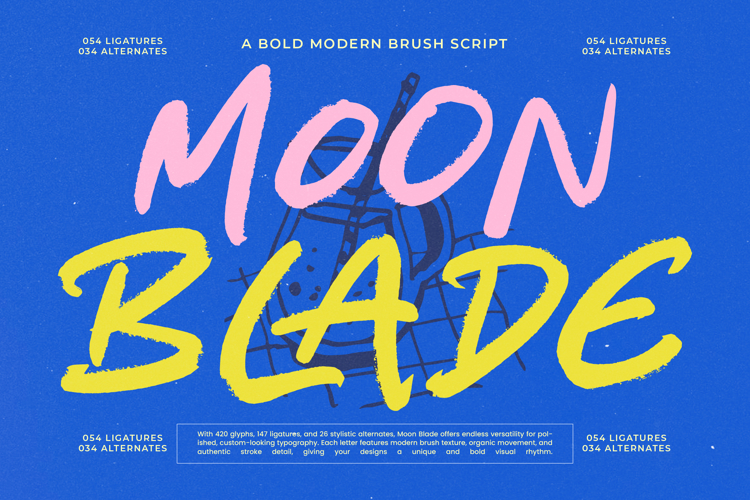
Moon Blade - Bold Modern Brush Script
Unleash raw creative energy into your typography with Moon Blade - Bold Modern Brush Script. This typeface is a study in dynamic texture, delivering the spontaneous impact of hand-painted script combined with a refined, modern structure. Its bold, sweeping strokes and heavily textured edges provide an immediately captivating visual rhythm, ensuring your design commands attention whether viewed on screen or in high-volume print applications.